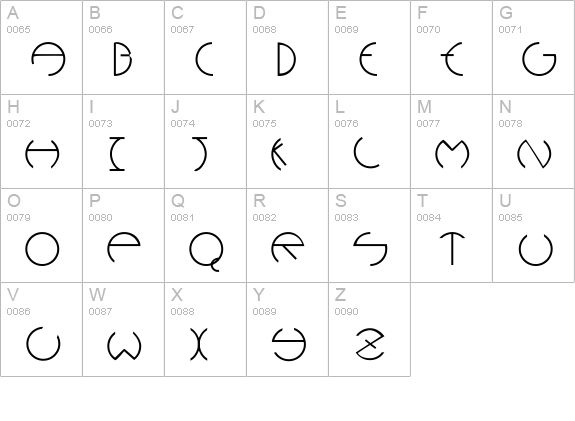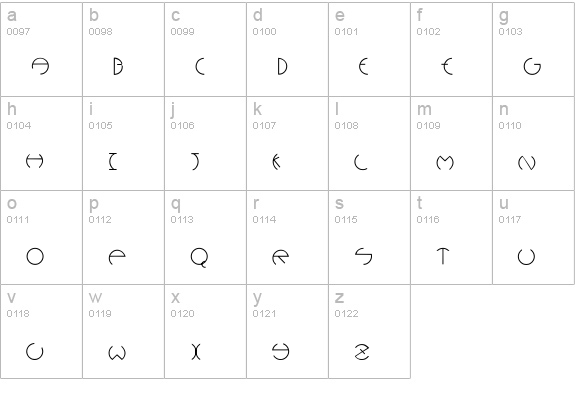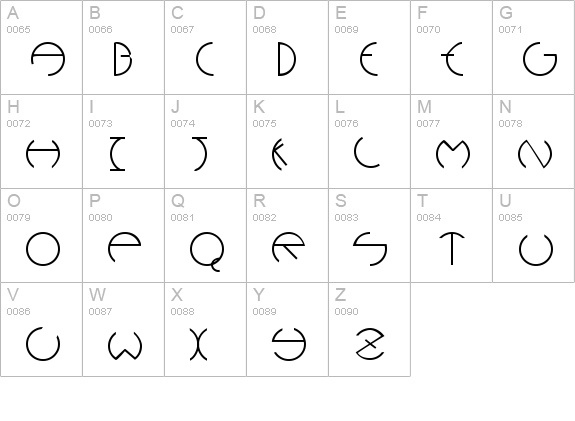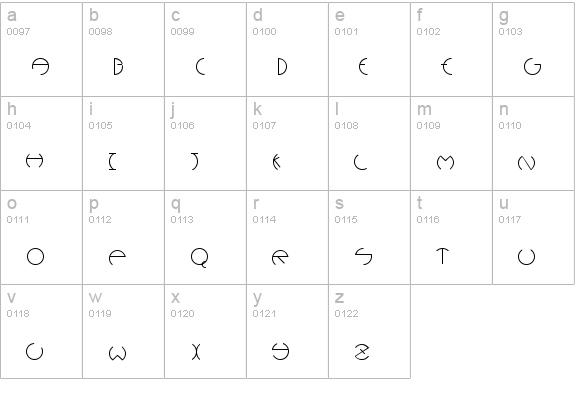
Rounders Plain Font Details
Rounders Plain font is a versatile and clean typeface that exudes a sense of simplicity and elegance. With its rounded edges and balanced letterforms, this font is perfect for a wide range of design projects, from branding to editorial design. The beauty of Rounders Plain font lies in its versatility - it can be used for both headings and body text, making it a great choice for those looking for a font that is both functional and stylish. Whether you're designing a website, creating marketing materials, or working on a print project, Rounders Plain font is sure to elevate your design. The best part is that Rounders Plain font is completely free to download at FontsMarket.com. So why wait? Add this stylish and modern font to your collection today and take your design projects to the next level.